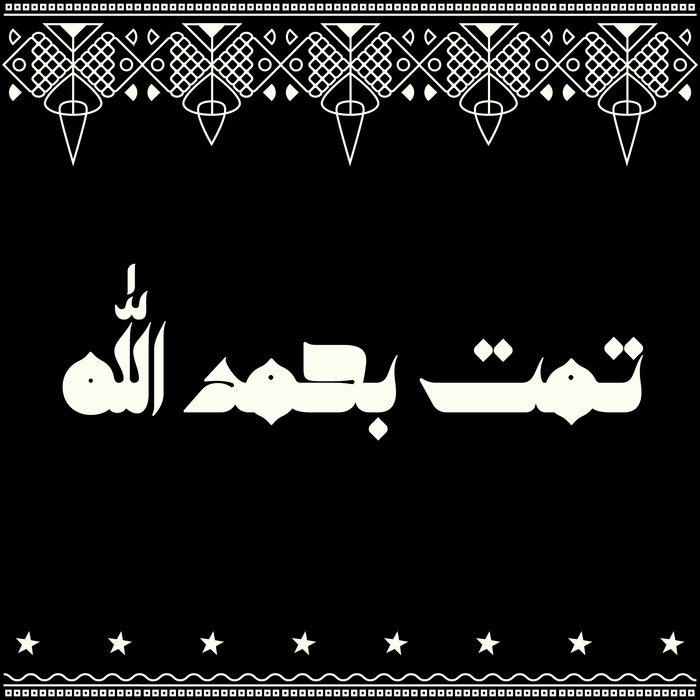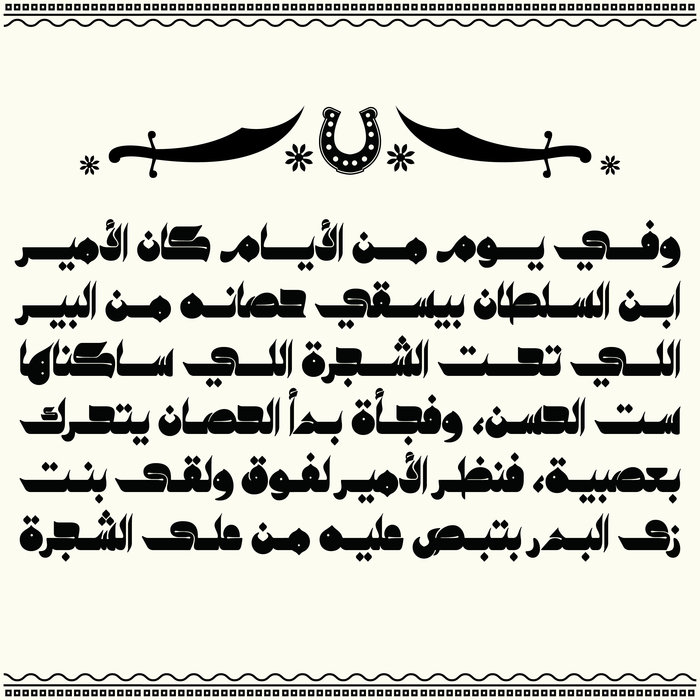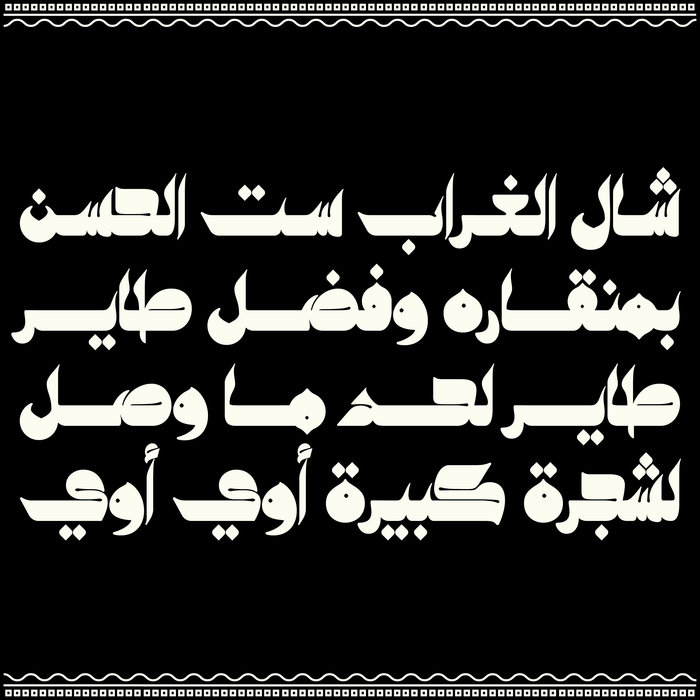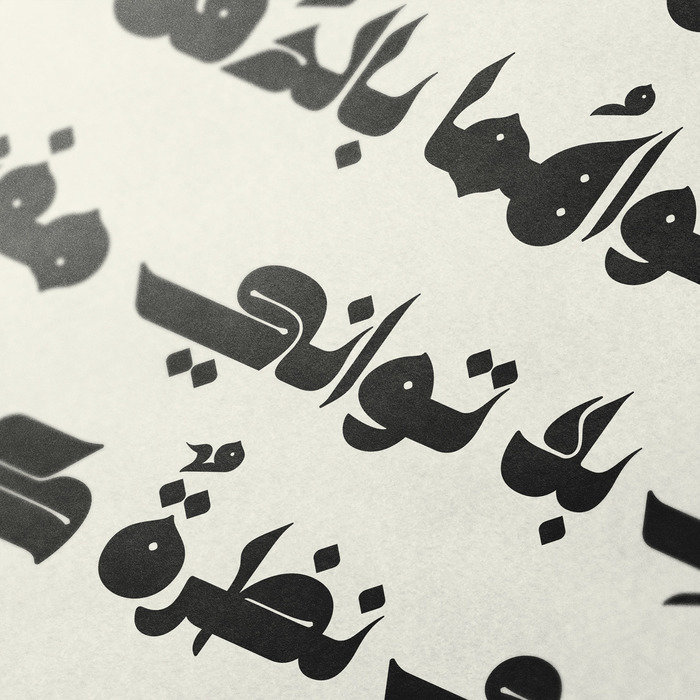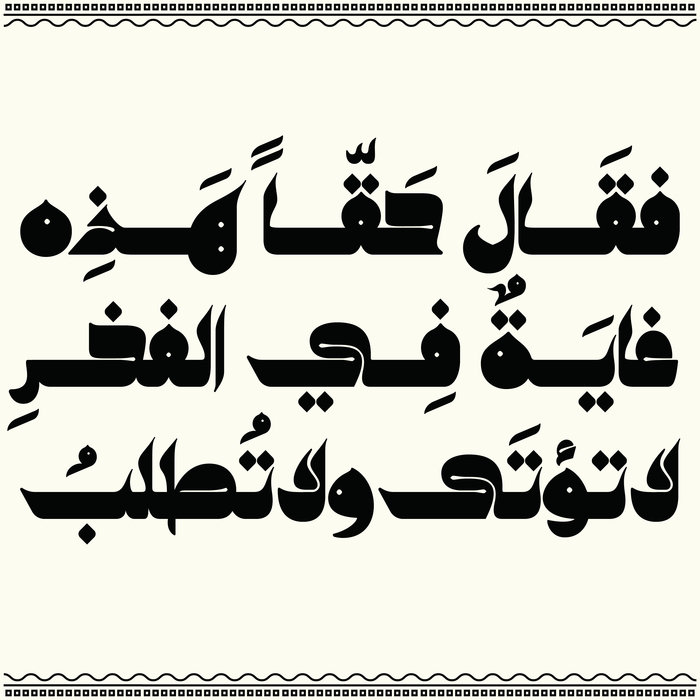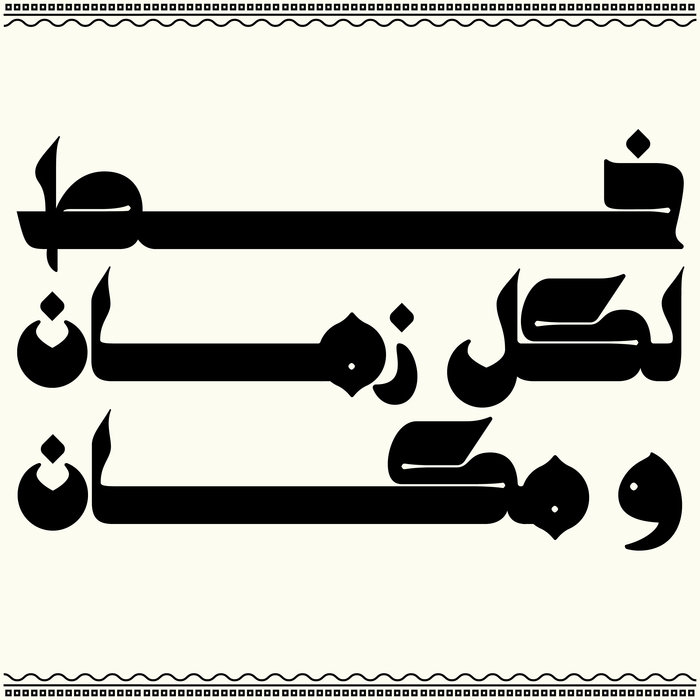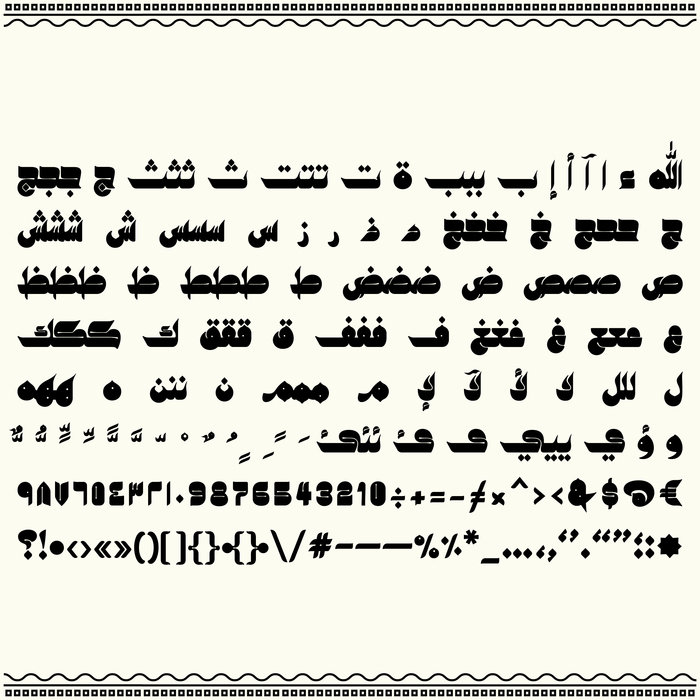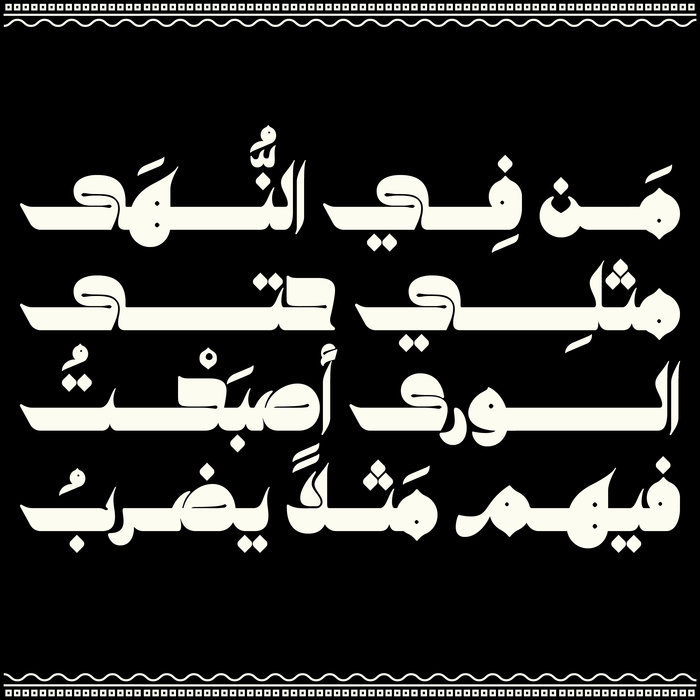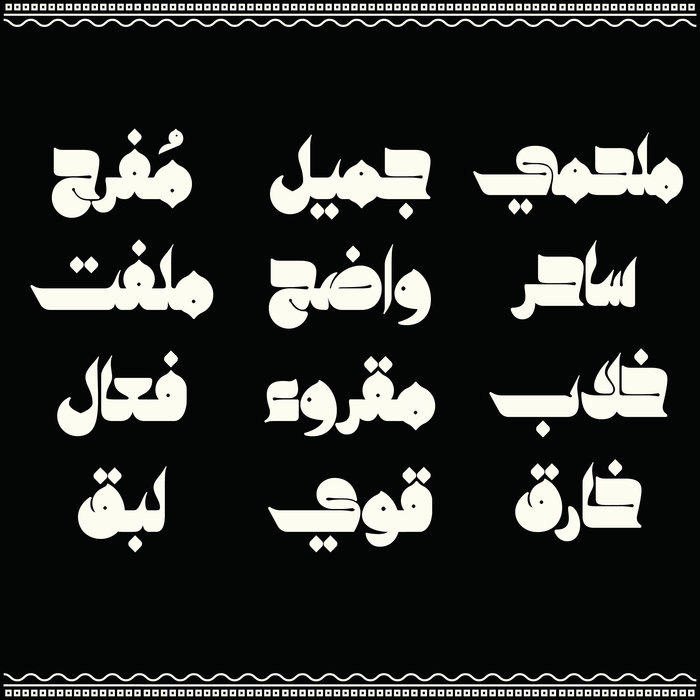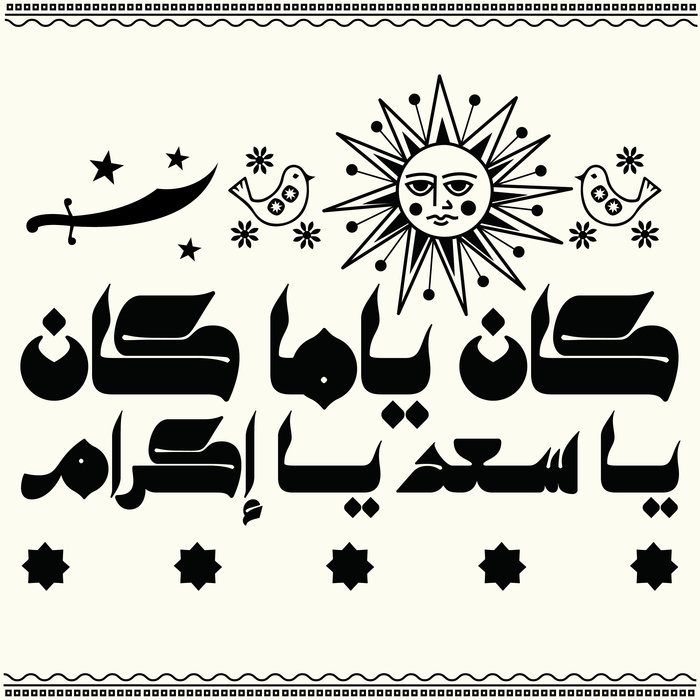
Kahraman - Arabic Font
Kahraman (which is the Arabic for Amber) is an Arabic display font that is inspired by the One Thousand and One Nights folk tales. The letterforms feature a distinctive style and they are spontaneously designed in order to suit illustrations found on tales, love stories, tragedies, comedies and poems. Kahraman Font is suitable for print, web design and mobile applications.